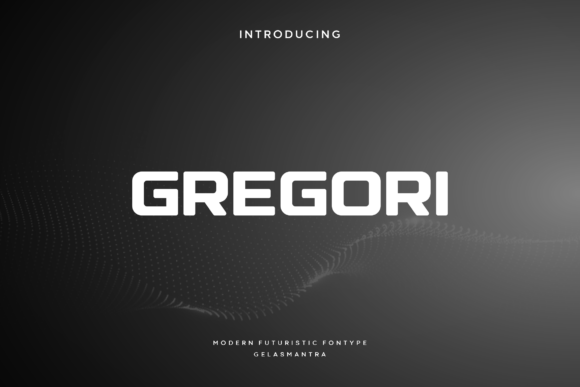
Introducing Gregori Font: A Modern, Minimalist, and Sci-Fi Inspired Display Font
In the world of typography, fonts play a crucial role in conveying the tone and personality of a brand, product, or service. With the vast array of fonts available, it can be challenging to find the perfect one that stands out from the crowd. However, if you’re looking for a font that combines science fiction style, modernity, and minimalism, look no further than the Gregori Font. In this article, we’ll explore the features, benefits, and uses of the Gregori Font, and why it’s an excellent choice for your design needs.
What is Gregori Font?
Gregori is a display font that embodies a unique blend of science fiction style, modernity, and minimalism. This font is specifically designed to make a statement, with its sleek and futuristic aesthetic. One of the distinctive features of the Gregori Font is that it’s available in all caps only, which adds to its bold and attention-grabbing appeal.
Key Features of Gregori Font
• Science Fiction Style: The Gregori Font boasts a futuristic and sci-fi inspired design, making it perfect for projects that require a space-age feel.
• Modern and Minimalist: The font’s clean lines, simple shapes, and reduced ornamentation give it a modern and minimalist look that’s ideal for designs that require a touch of sophistication.
• All Caps: The Gregori Font is available in all caps only, which adds to its bold and commanding presence.
• Versatile: This font is suitable for a wide range of design applications, including logos, headlines, titles, and more.
Benefits of Using Gregori Font
The Gregori Font offers several benefits that make it an attractive choice for designers and businesses. Some of the advantages of using this font include:
• Unique and Distinctive: The Gregori Font’s sci-fi inspired design and modern aesthetic make it a unique and distinctive choice that can help your brand or design stand out.
• Highly Legible: Despite its futuristic design, the Gregori Font is highly legible, even at smaller sizes, making it suitable for a wide range of applications.
• Easy to Pair: The font’s simple and clean design makes it easy to pair with other fonts, allowing you to create harmonious and visually appealing typography.
• Scalable: The Gregori Font is highly scalable, which means it can be used in various design applications, from business cards to billboards.
Use Cases for Gregori Font
The Gregori Font is a versatile typeface that can be used in a variety of design applications. Some of the most suitable use cases for this font include:
• Logos: The Gregori Font’s bold and futuristic design makes it an excellent choice for logos that require a modern and attention-grabbing aesthetic.
• Headlines and Titles: The font’s high legibility and commanding presence make it suitable for headlines and titles that require a bold and impactful look.
• Advertising: The Gregori Font’s unique and distinctive design makes it an excellent choice for advertising campaigns that require a futuristic and modern aesthetic.
• Branding: The font’s versatility and scalability make it suitable for branding applications, such as business cards, letterheads, and packaging.
Tips for Using Gregori Font Effectively
To get the most out of the Gregori Font, here are some tips for using it effectively:
• Use it Sparingly: Due to its bold and attention-grabbing design, it’s best to use the Gregori Font sparingly to avoid overwhelming the viewer.
• Pair it with Neutral Fonts: Pair the Gregori Font with neutral fonts to create a harmonious and visually appealing typography.
• Experiment with Colors: The Gregori Font’s futuristic design makes it suitable for a wide range of colors, so feel free to experiment with different color schemes to find the one that works best for your design.
• Consider the Context: Consider the context in which the Gregori Font will be used, and adjust the font size, color, and style accordingly.
In conclusion, the Gregori Font is a modern, minimalist, and sci-fi inspired display font that’s perfect for designs that require a unique and attention-grabbing aesthetic. With its bold and futuristic design, high legibility, and versatility, this font is suitable for a wide range of design applications, from logos and headlines to branding and advertising. By following the tips outlined in this article, you can use the Gregori Font effectively and create stunning designs that leave a lasting impression.